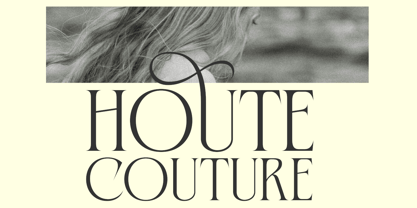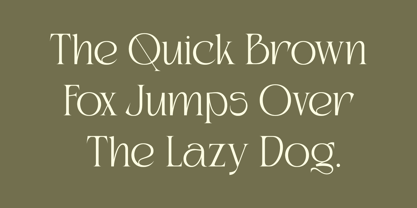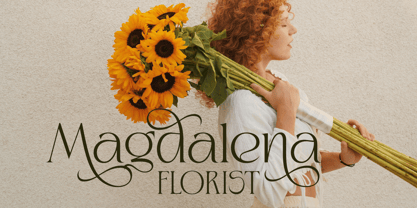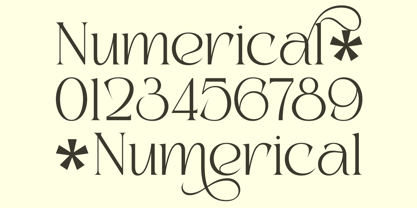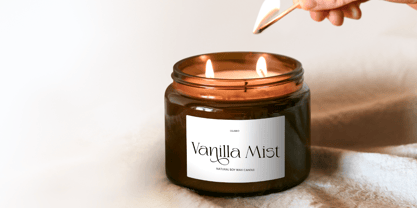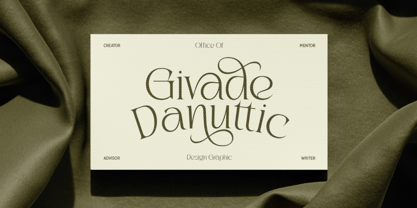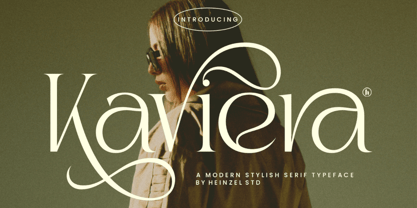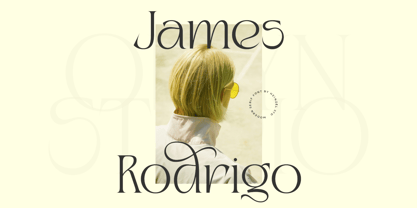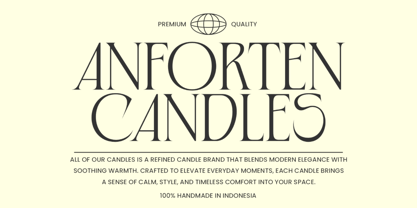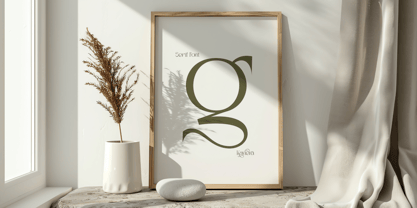
Kaviera
by Heinzel Std
The Kaviera Font Family was designed by Nofi Sofyan Hadi and published by Heinzel Std. Kaviera contains 2 styles and family package options. More about this family
Kaviera is a modern stylish serif font crafted to balance timeless elegance with contemporary confidence. Featuring refined letterforms, graceful curves, and sharp contrast, Kaviera delivers a sophisticated yet expressive visual tone. Perfect for fashion branding, editorial design, luxury logos, packaging, magazines, and high-end digital projects, this modern serif typeface brings a bold, polished presence to any creative work. Kaviera blends classic serif aesthetics with a modern edge, making it ideal for designers who want elegance with impact.
Designers: Nofi Sofyan Hadi
Foundry: Heinzel Std